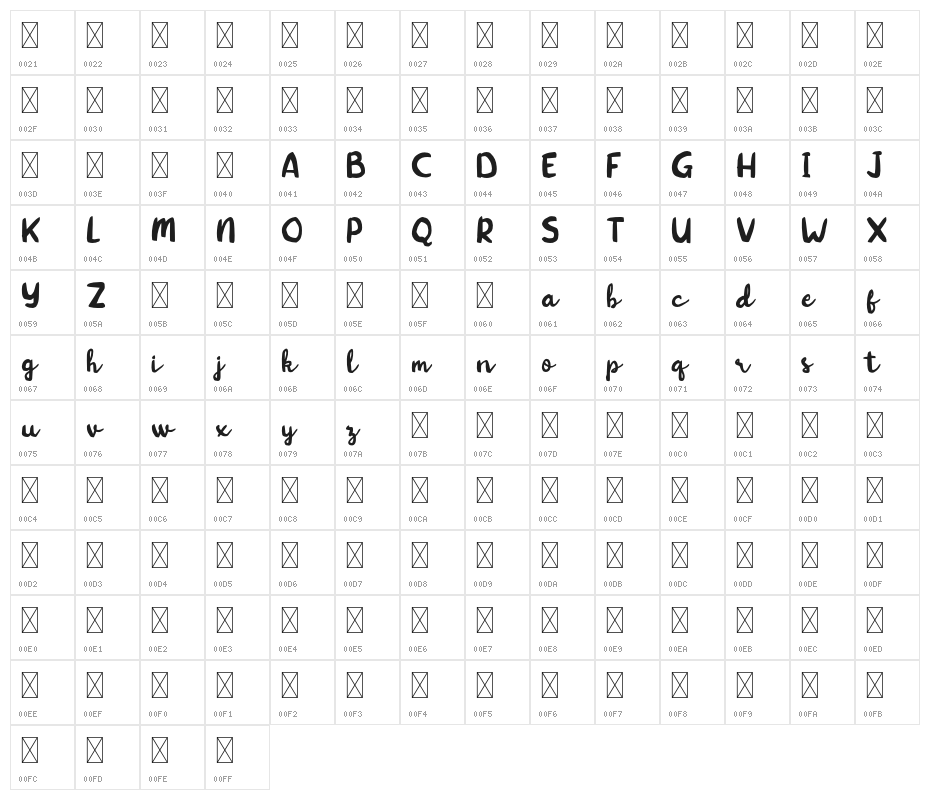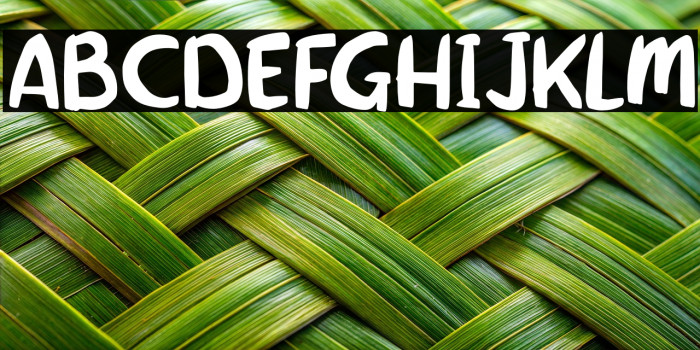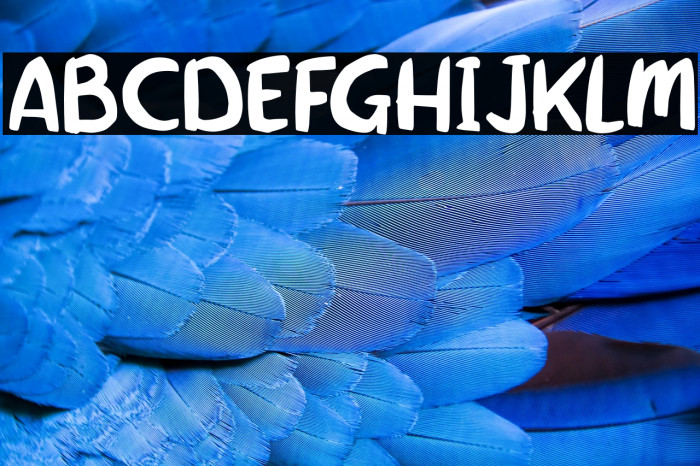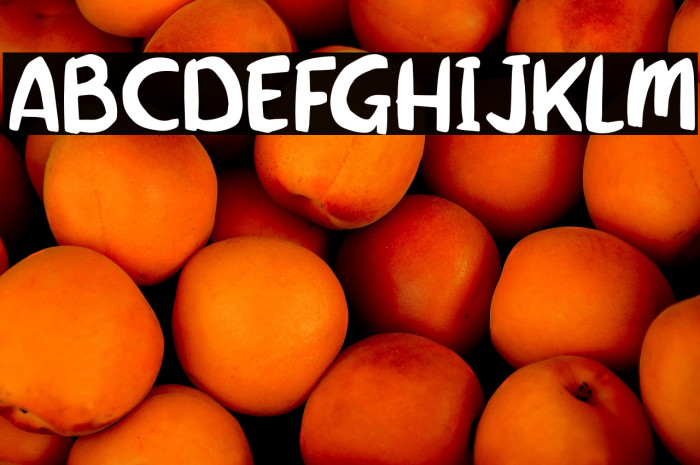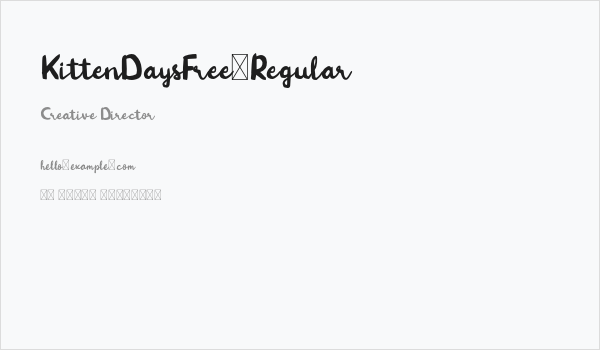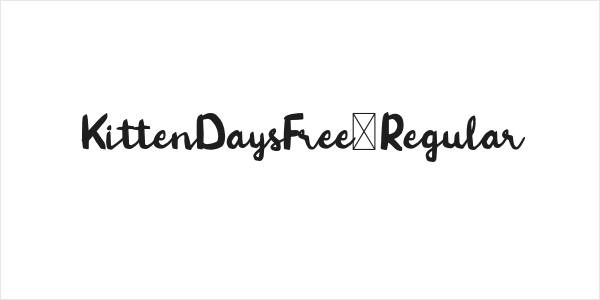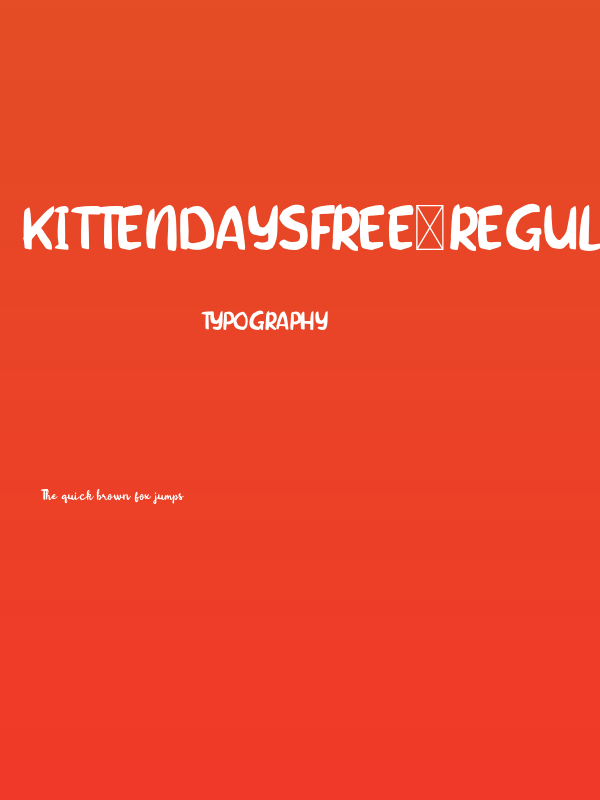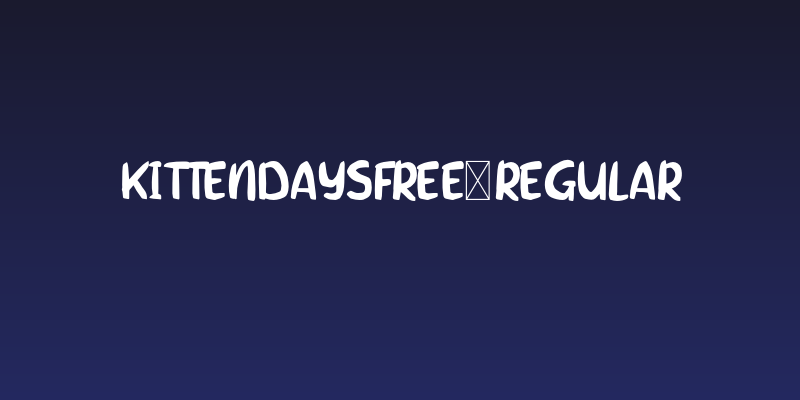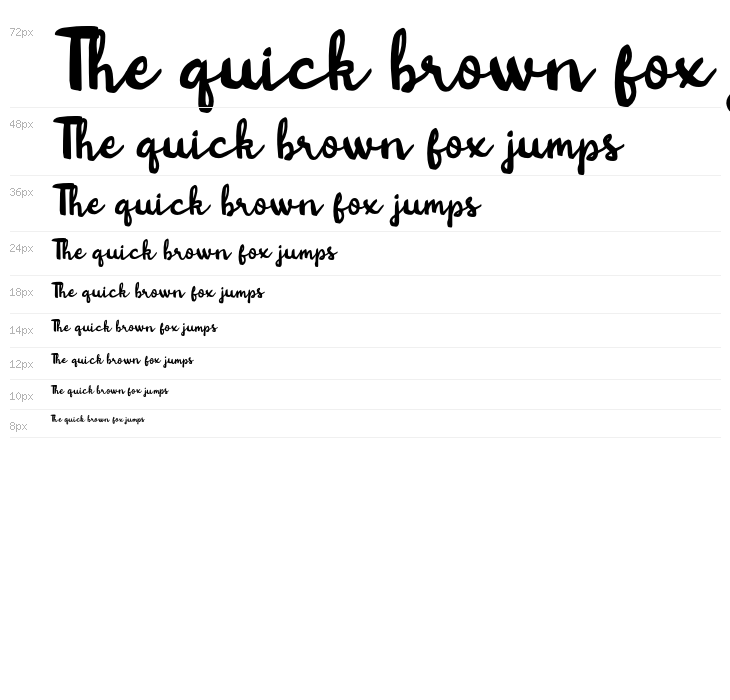
KittenDaysFree-Regular Font
KittenDaysFree-Regular Description
This playful and whimsical font features a handwritten style with a casual and friendly appearance. The letters have a smooth, flowing quality, with rounded edges and a slightly irregular baseline that adds to its charm. The uppercase characters are bold and prominent, while the lowercase letters maintain a consistent, flowing script. The font's overall appearance is lively and approachable, making it suitable for projects that require a personal touch. Its unique style can add a sense of fun and creativity to any design, making it ideal for children's books, greeting cards, or playful branding.
| Overall Style | Playful, Whimsical |
| Use Case | Headlines, Logos, Invitations |
| Proposed Projects | Children's books, greeting cards, playful branding, creative invitations. |